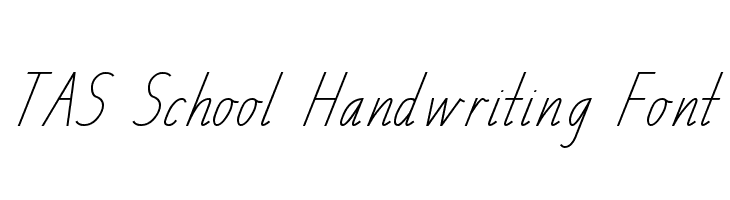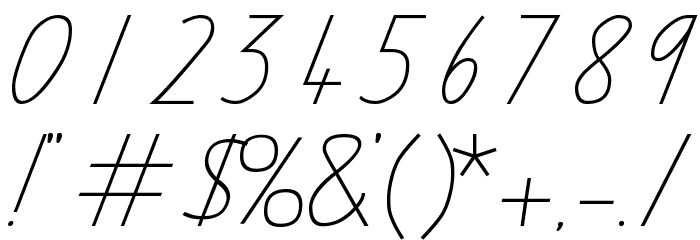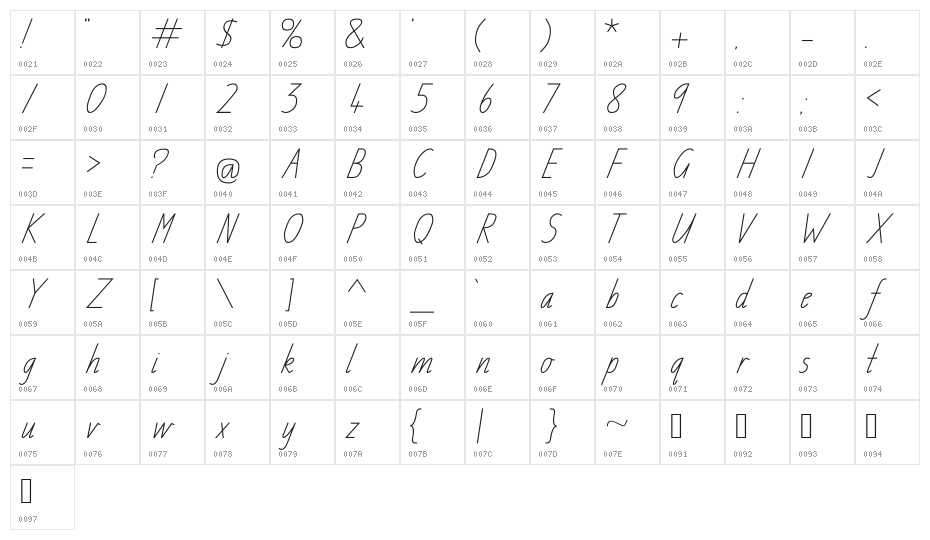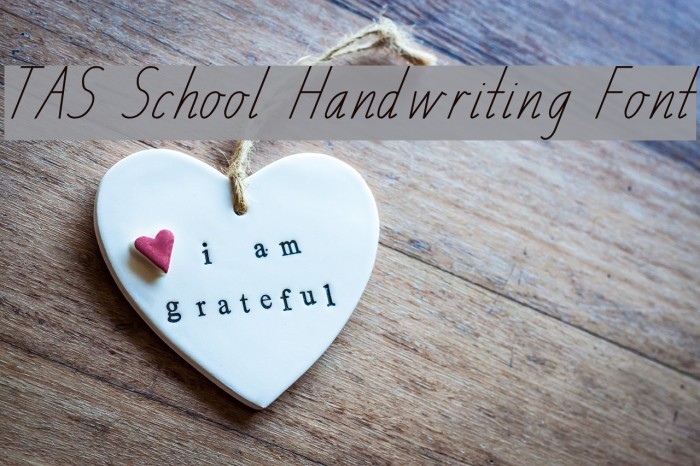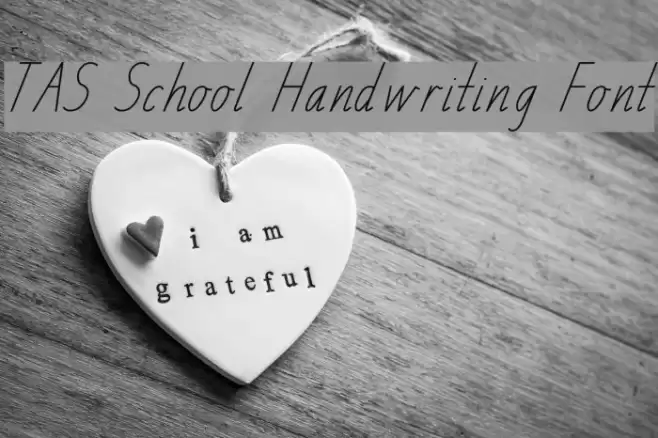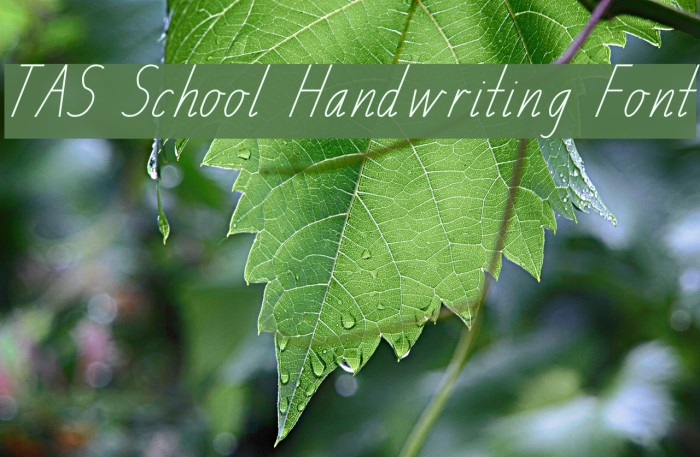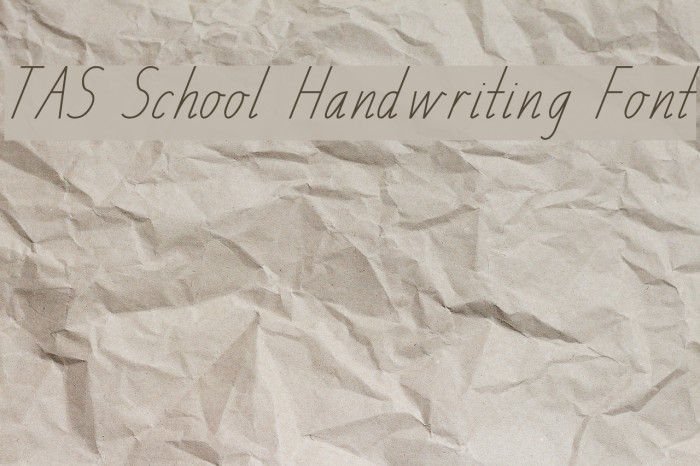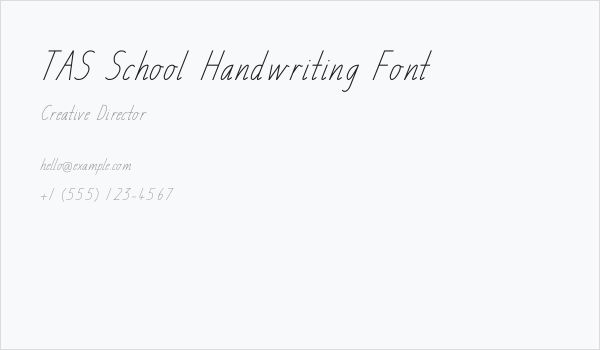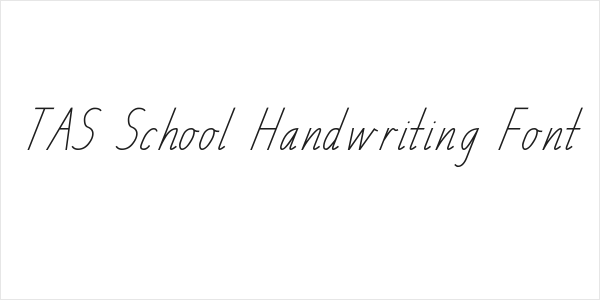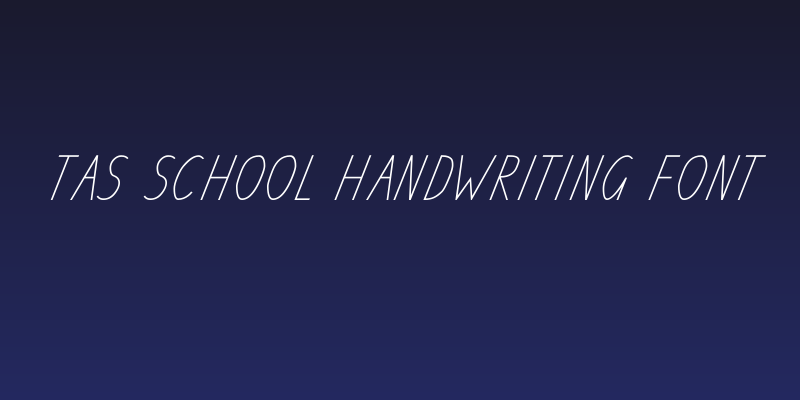
TAS School Handwriting Font Font
TAS School Handwriting Font Description
This font features a clean and legible handwriting style, reminiscent of traditional school scripts. The characters are slightly slanted, giving a natural and fluid appearance. The uppercase letters are tall and narrow, while the lowercase letters maintain a consistent height, enhancing readability. The numerals are straightforward and align well with the overall style. Special characters are included, maintaining the same handwritten aesthetic. The strokes are consistent in thickness, providing a balanced and harmonious look across all characters.
| Proposed Projects | Ideal for educational materials, children's books, personal notes, and informal invitations. |